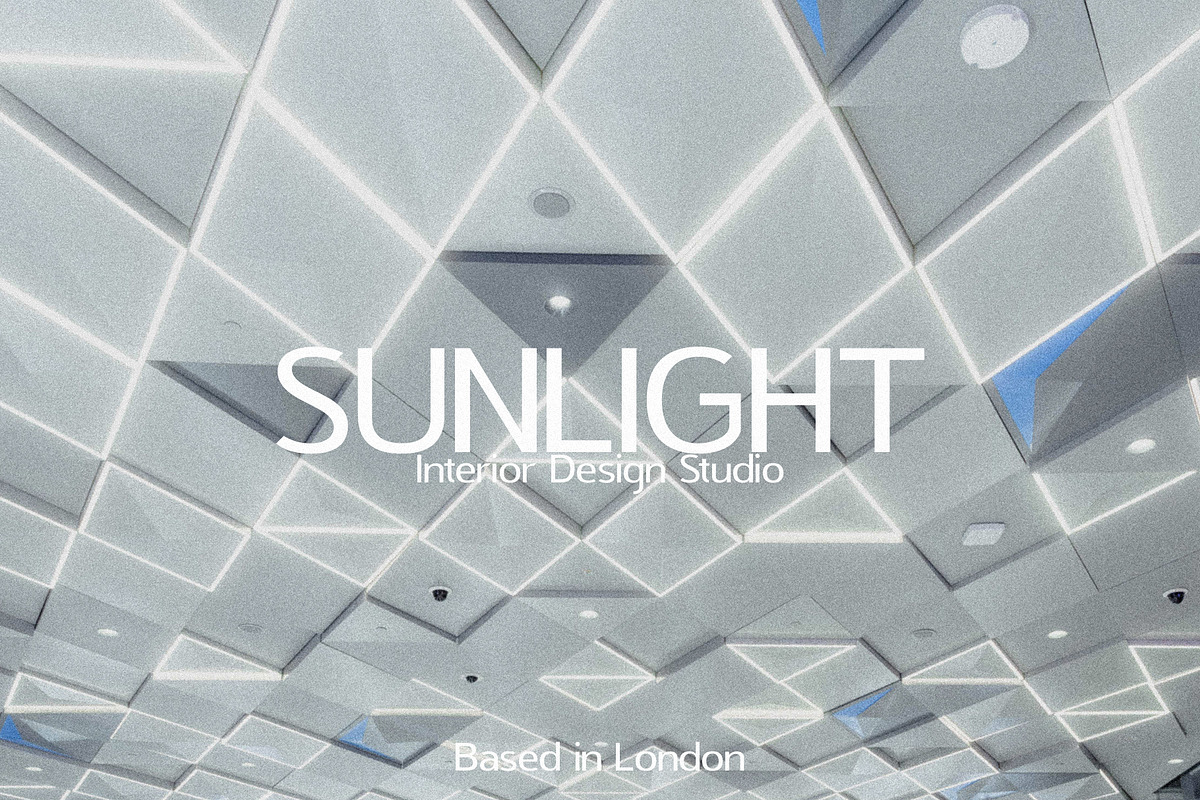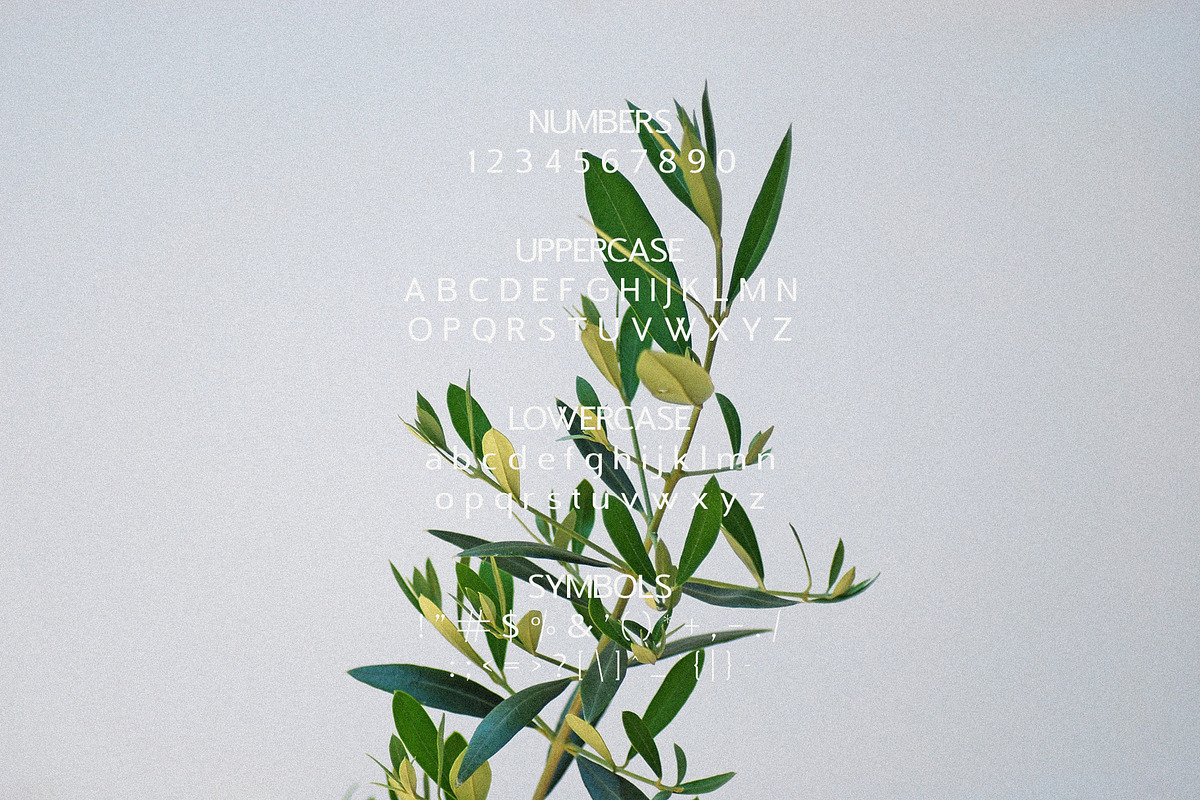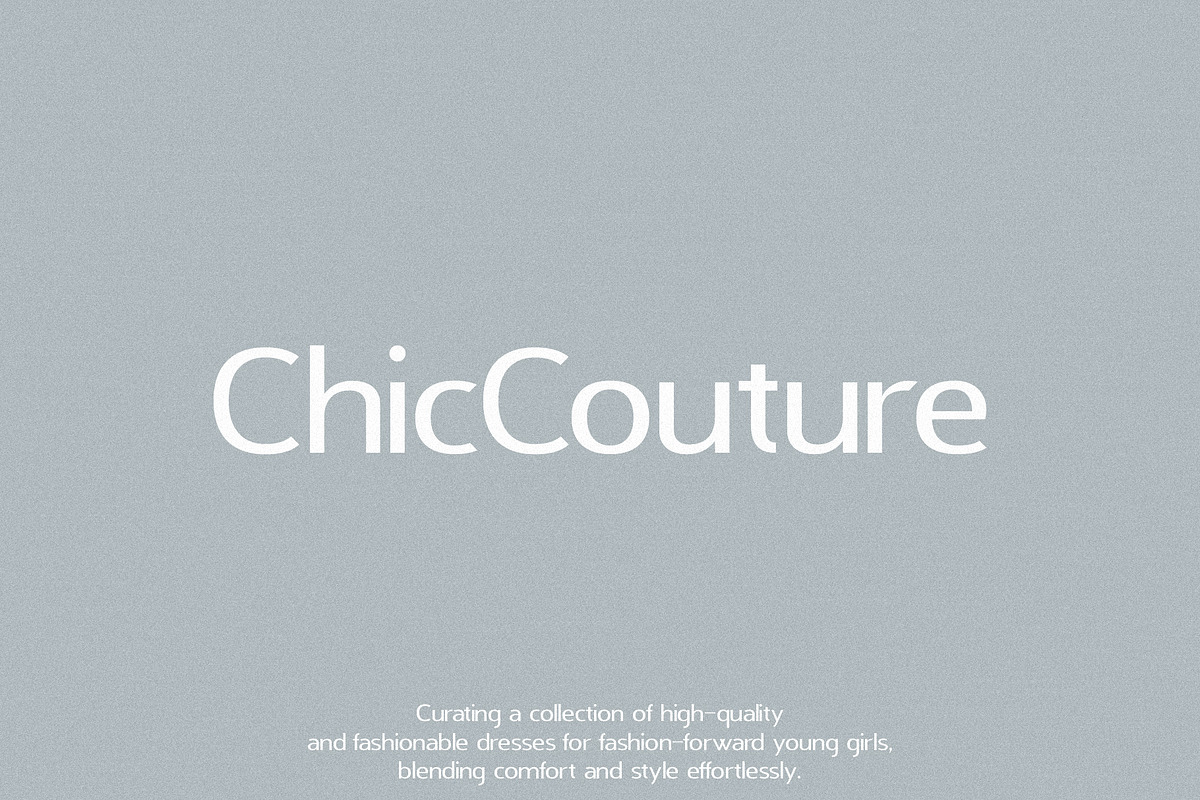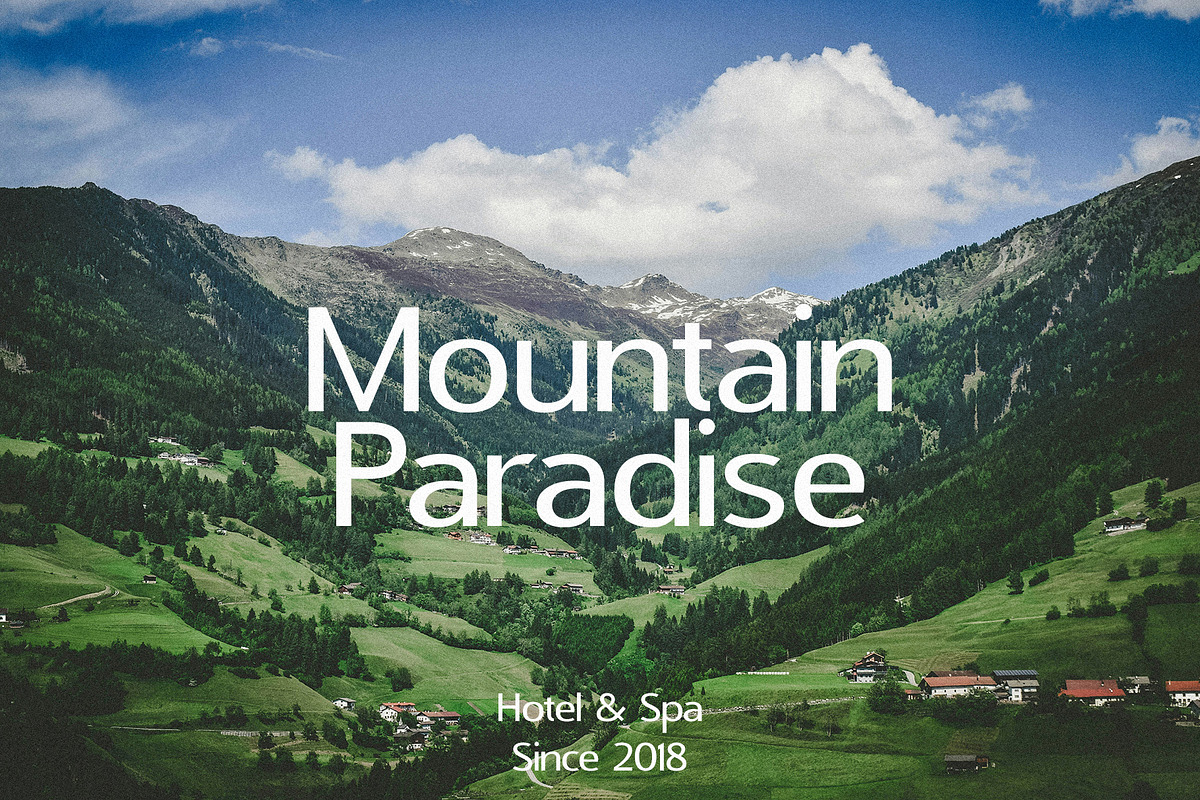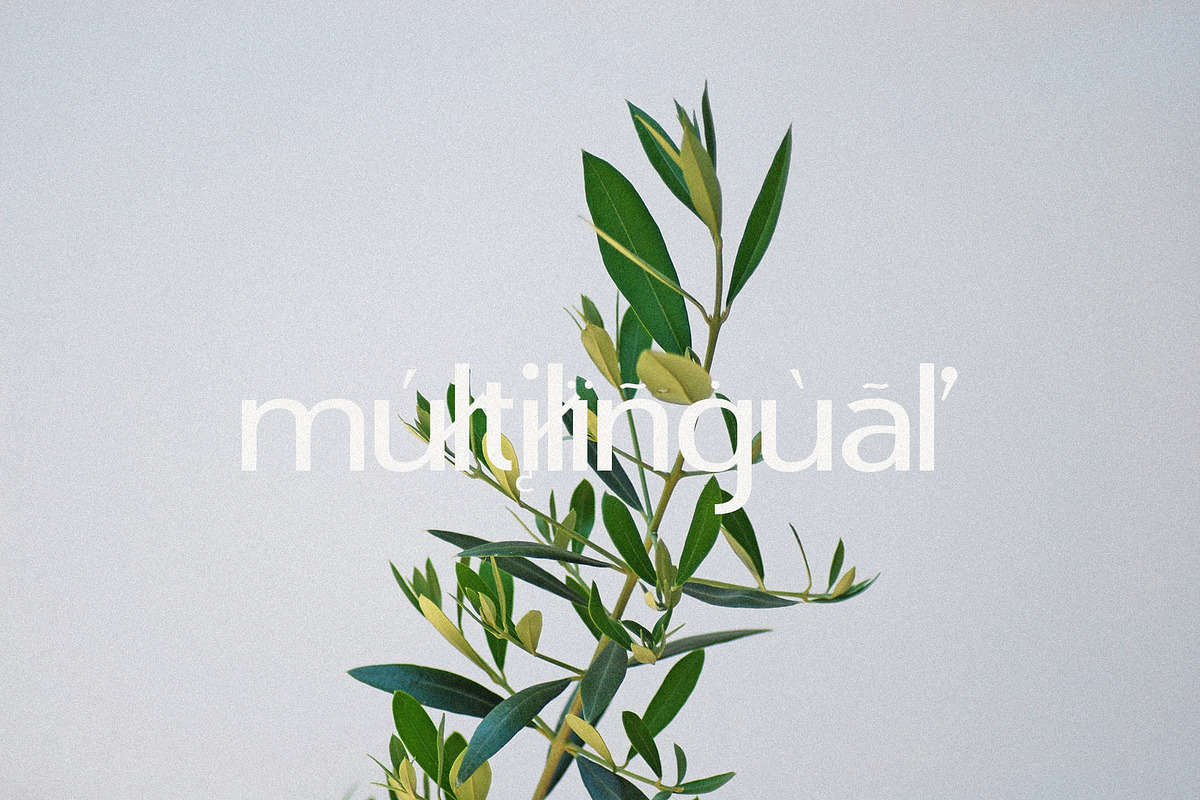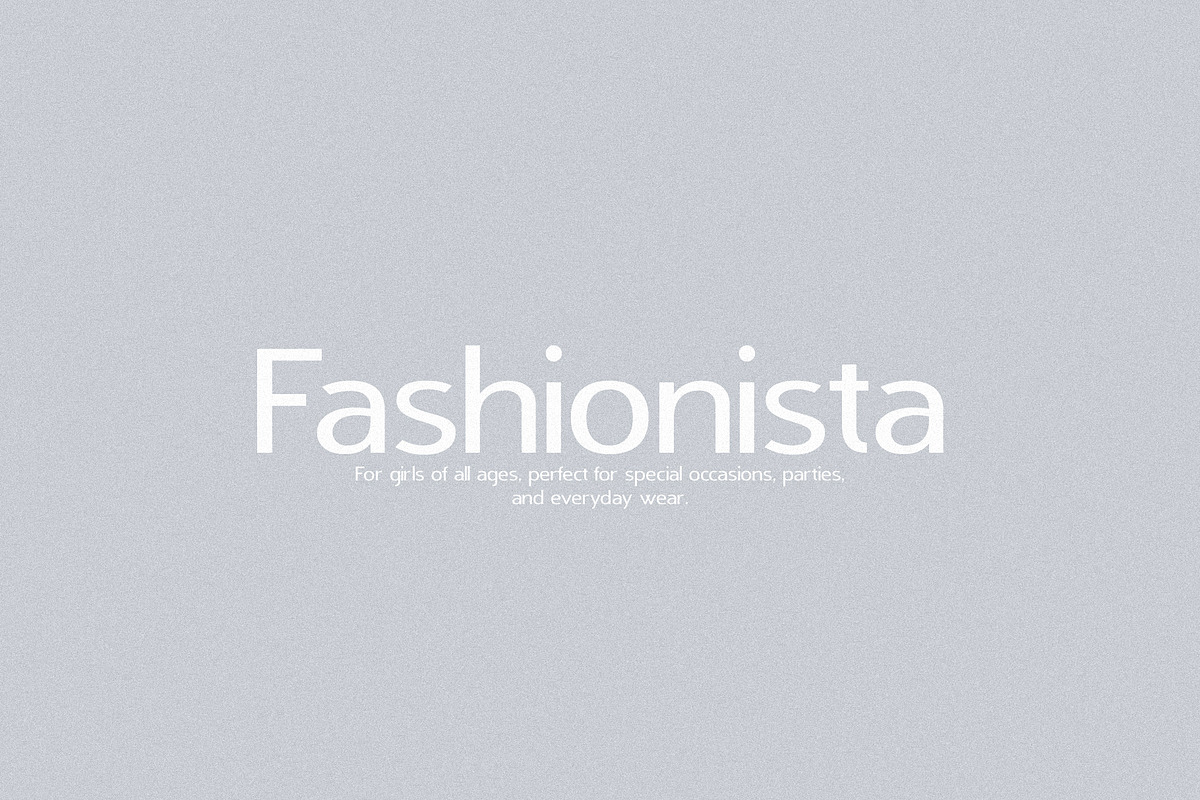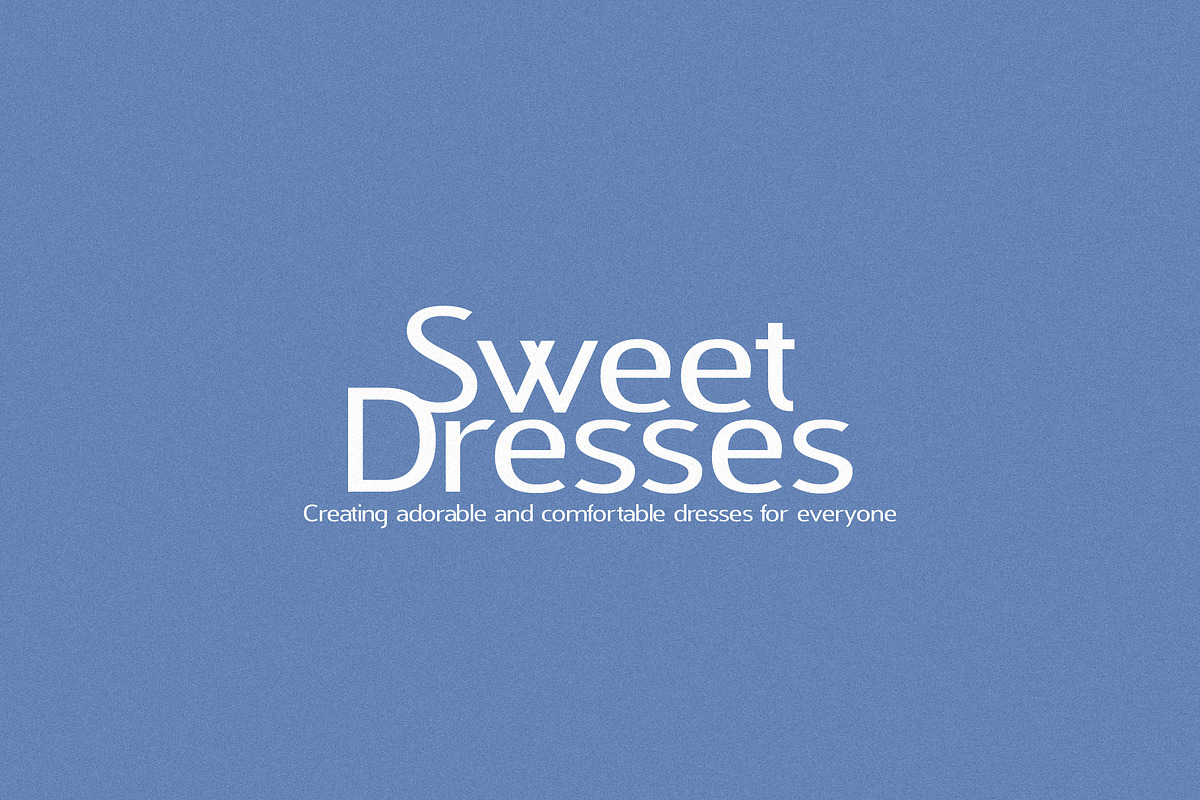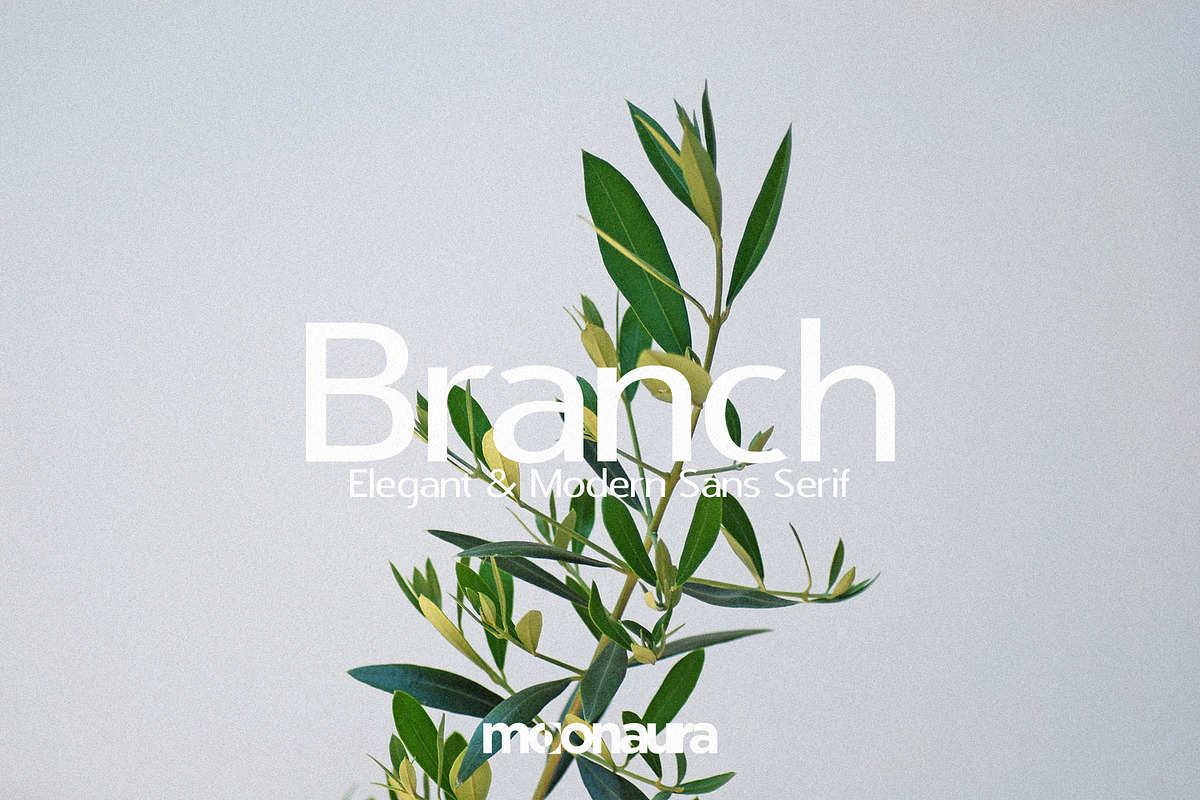
Branch - Elegant & Modern Sans Serif
Branch is an elegant, modern sans-serif typeface featuring clean lines and balanced proportions. Its refined design makes it perfect for sophisticated branding, editorial design, and upscale digital projects.